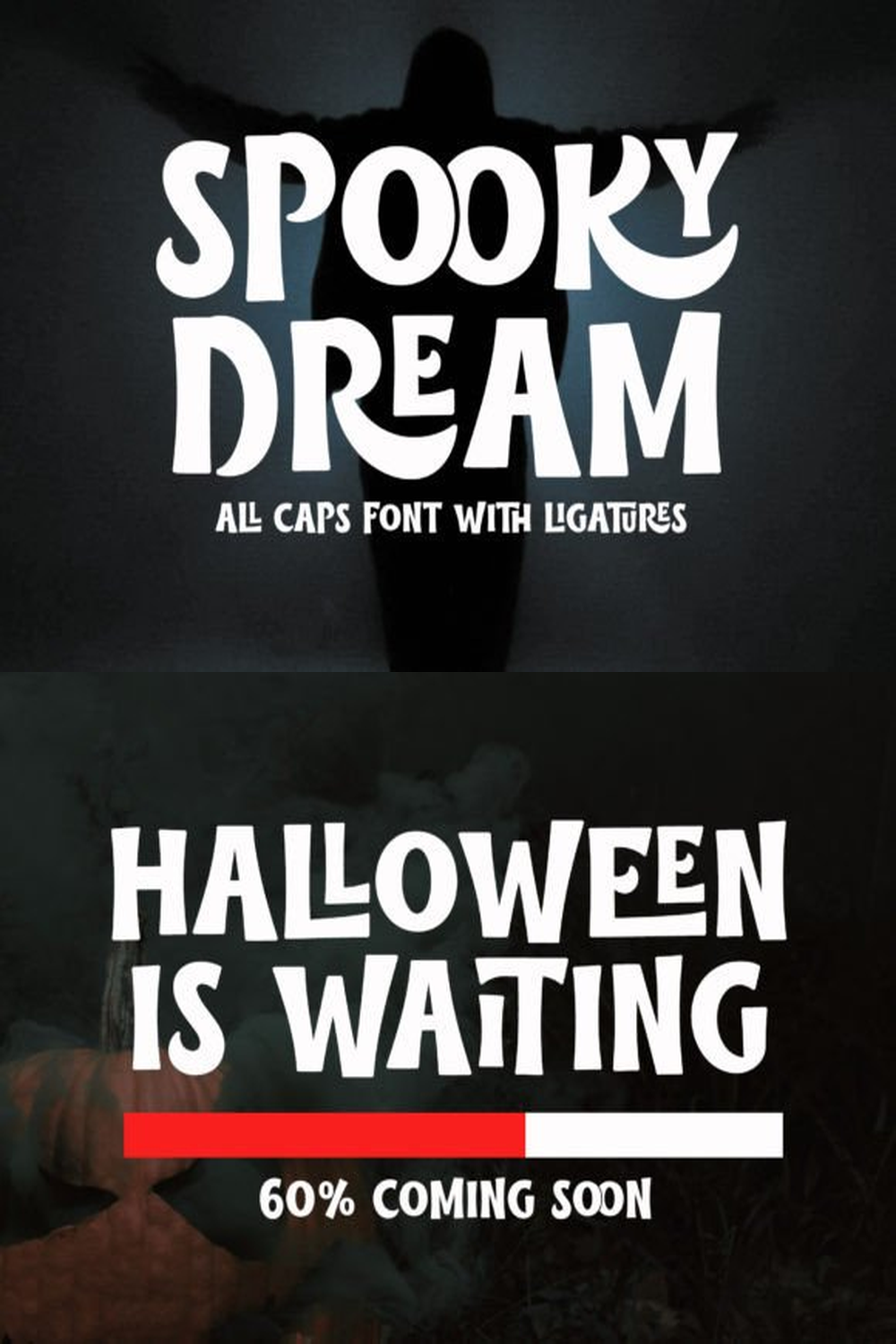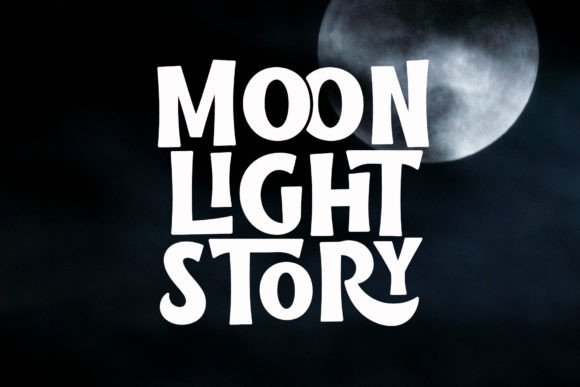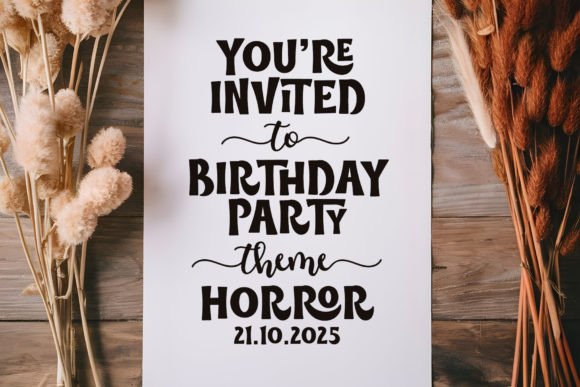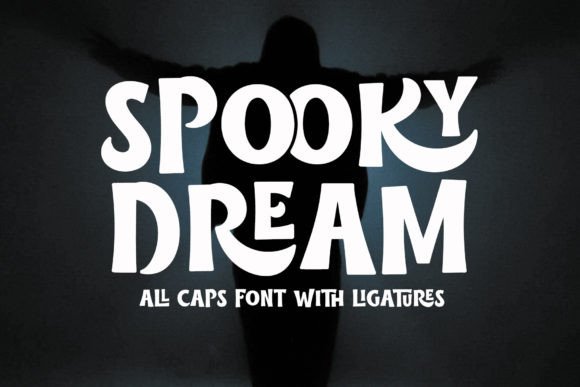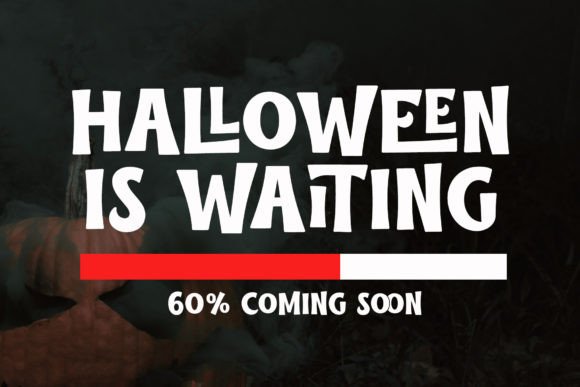
Spooky Dream Font: A Bold & Bouncy Serif for Halloween Crafts & DIY!
About the Spooky Dream Font
The Spooky Dream Font offers a perfect balance of form and function for your design needs. Spooky Dream is all caps serif font. It is bouncy and bold, with spooky and cute vibes in the same time.
This font has some ligatures to give more options in designing.
Spooky Dream is suitable font for design that needs spooky and bouncy vibes, such as Halloween, t-shirt, crafting, stickers, and many more.